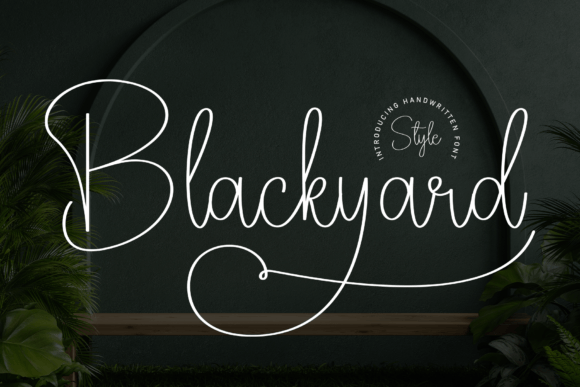
Have you ever stared at a blank page, a blank screen, or a blank canvas, searching for the perfect font to bring your idea to life? You know, that moment when everything else fades away and all you can think about is finding the perfect combination of style and personality to make your project truly shine? That’s exactly what happened to me when I stumbled upon the Blackyard Font.
Blackyard Font is a charming, handwritten display font that exudes warmth and friendliness. It’s perfect for writing wedding invitations, cards, or any other design that needs a touch of whimsy. As a designer, you know how crucial the right font can be in setting the tone and atmosphere of your project. Blackyard Font is a valuable addition to any designer’s toolkit, offering a unique and playful touch that’s sure to delight your clients and audience.
Blackyard Font Key Features
- Font Size: 1,040 glyphs, including a wide range of characters, punctuation, and symbols.
- Unique Characteristics: Distinctive, modern design with a mix of geometric and organic elements, suitable for use in logos, branding, and digital products.
- Language Support: Supports over 200 languages, including Latin, Cyrillic, Greek, and many others.
- Font Style: Available in regular, bold, italic, and bold-italic styles, allowing for versatile use in various design contexts.
Designer Review: Blackyard Font
Overall, I think Blackyard Font is an interesting and stylish choice for designers. Here’s my honest review:
- Unique Character Shapes: The Blackyard Font boasts unique, rounded character shapes that can add a touch of sophistication to your designs.
- Legibility: Despite its modern feel, Blackyard Font remains highly legible, making it suitable for a wide range of applications.
- Pairing Options: Blackyard Font can be paired with a variety of other fonts to create visually appealing combinations.
- Readability on Small Screens: At small font sizes, Blackyard Font can appear a bit fuzzy, which may be a concern for designers who plan to use it for digital applications.
- Lack of Weight Options: The font only comes in a single weight, which may limit its use in situations where multiple weights are required.
Blackyard Font is a stylish and modern choice for designers who want to add a touch of elegance to their work. While it may have some limitations, it’s definitely worth considering for projects where a unique, rounded aesthetic is desired.
Blackyard Font is ideal for use in design projects that require a unique and modern look.
It is particularly well-suited for branding materials, such as business cards, logos, and brochures.
It can also be used in digital design projects, such as website headers and footers, and social media graphics.